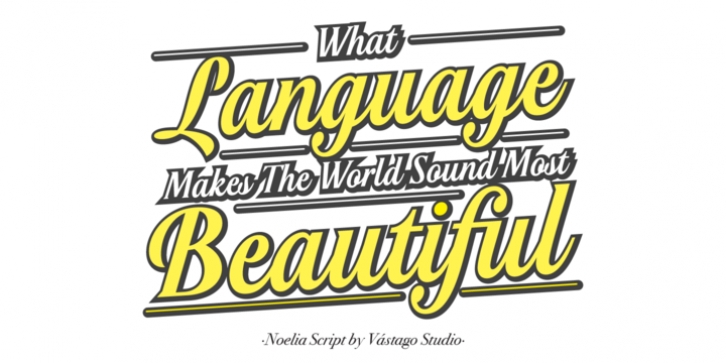
Noelia Script is a typeface inspired on the work of Doyald Young, Tommy Thompson, Matthew Carter and Giambattista Bodoni. This project is great to use in designs about sports, travel, and city postals, among others. This font has about 360 glyphs with stylistic alternates, old style numbers, serif caps, and a nice touch of classic penmanship. This is the result of a few months of work and that is it! Enjoy it! Thanks for buy it!